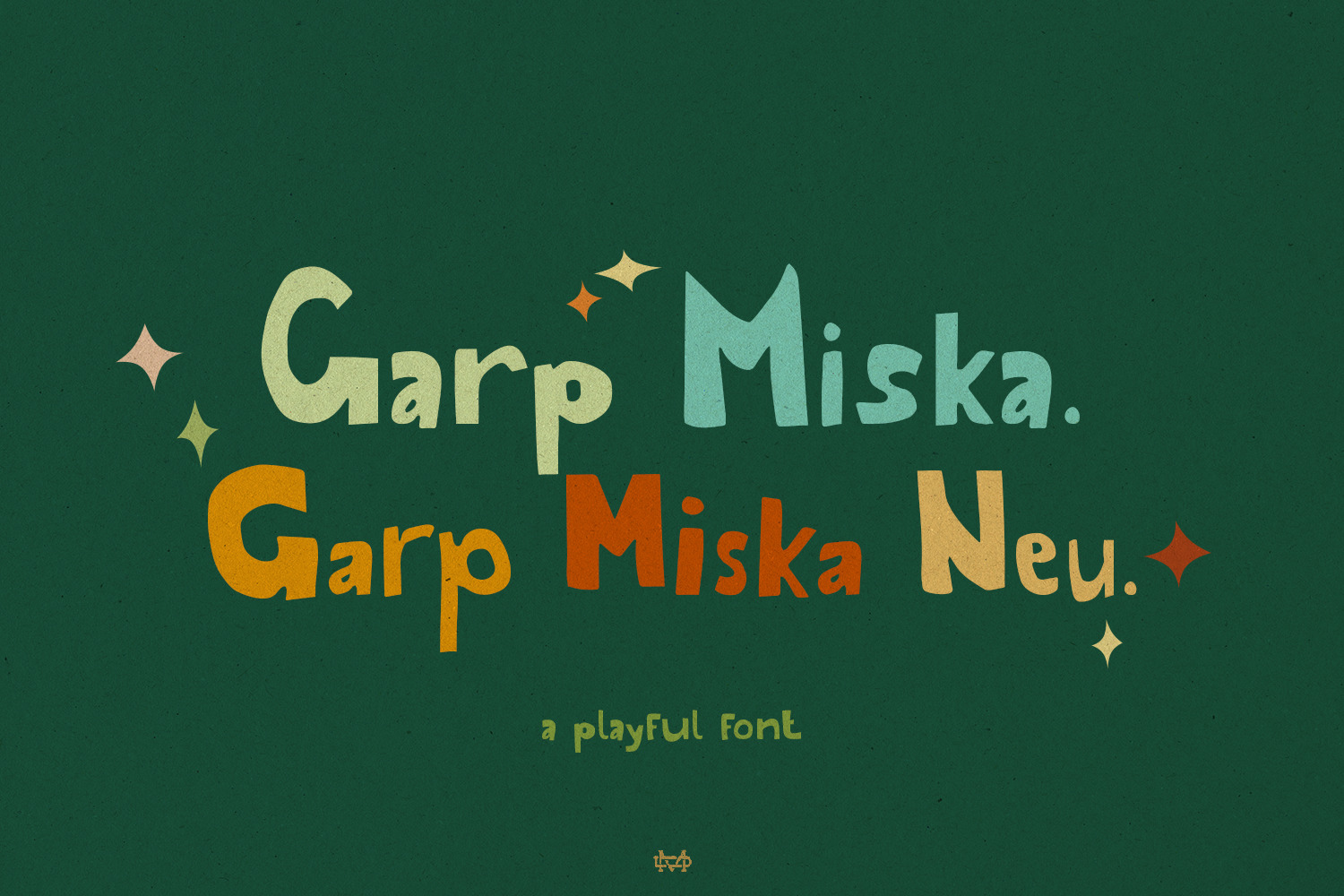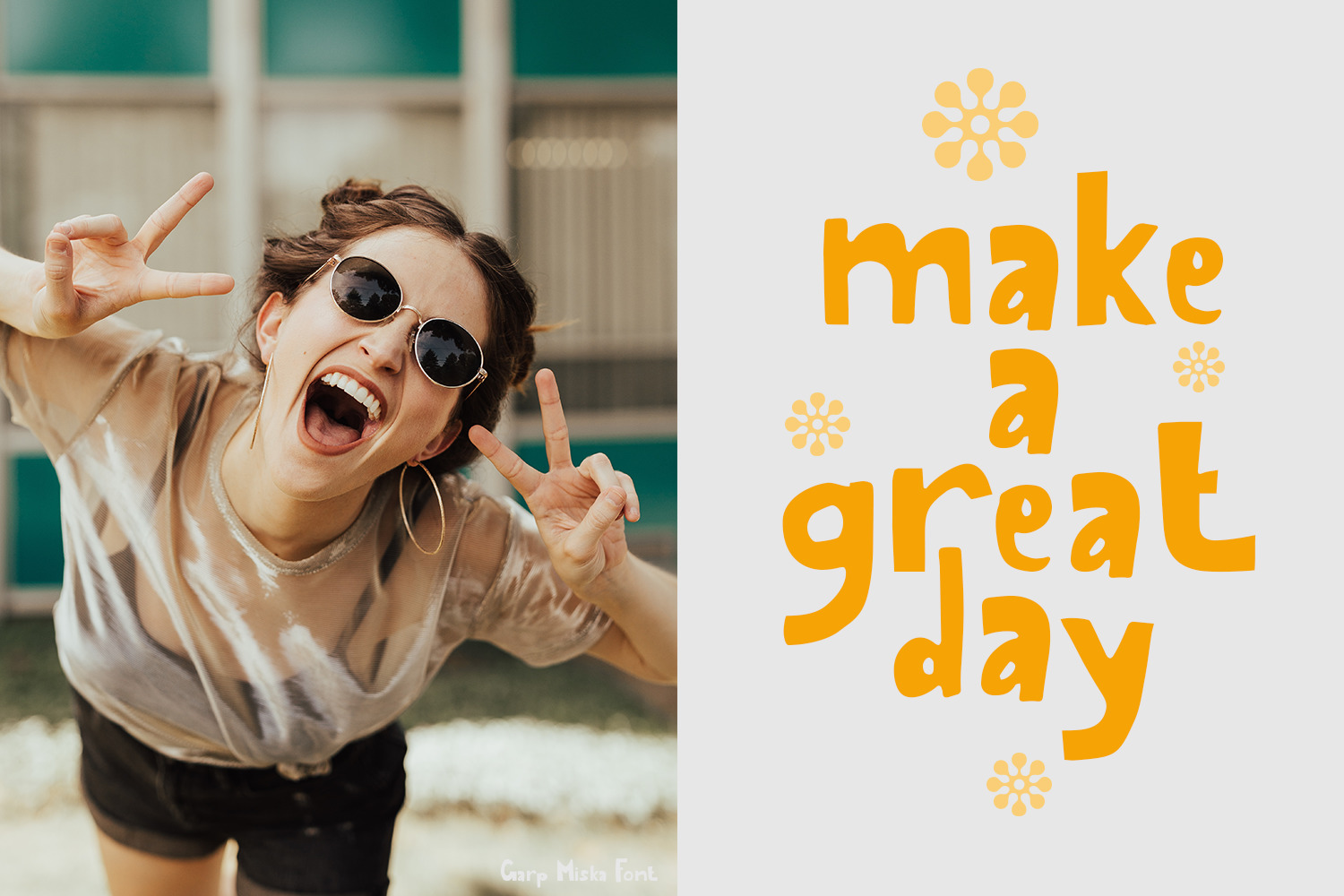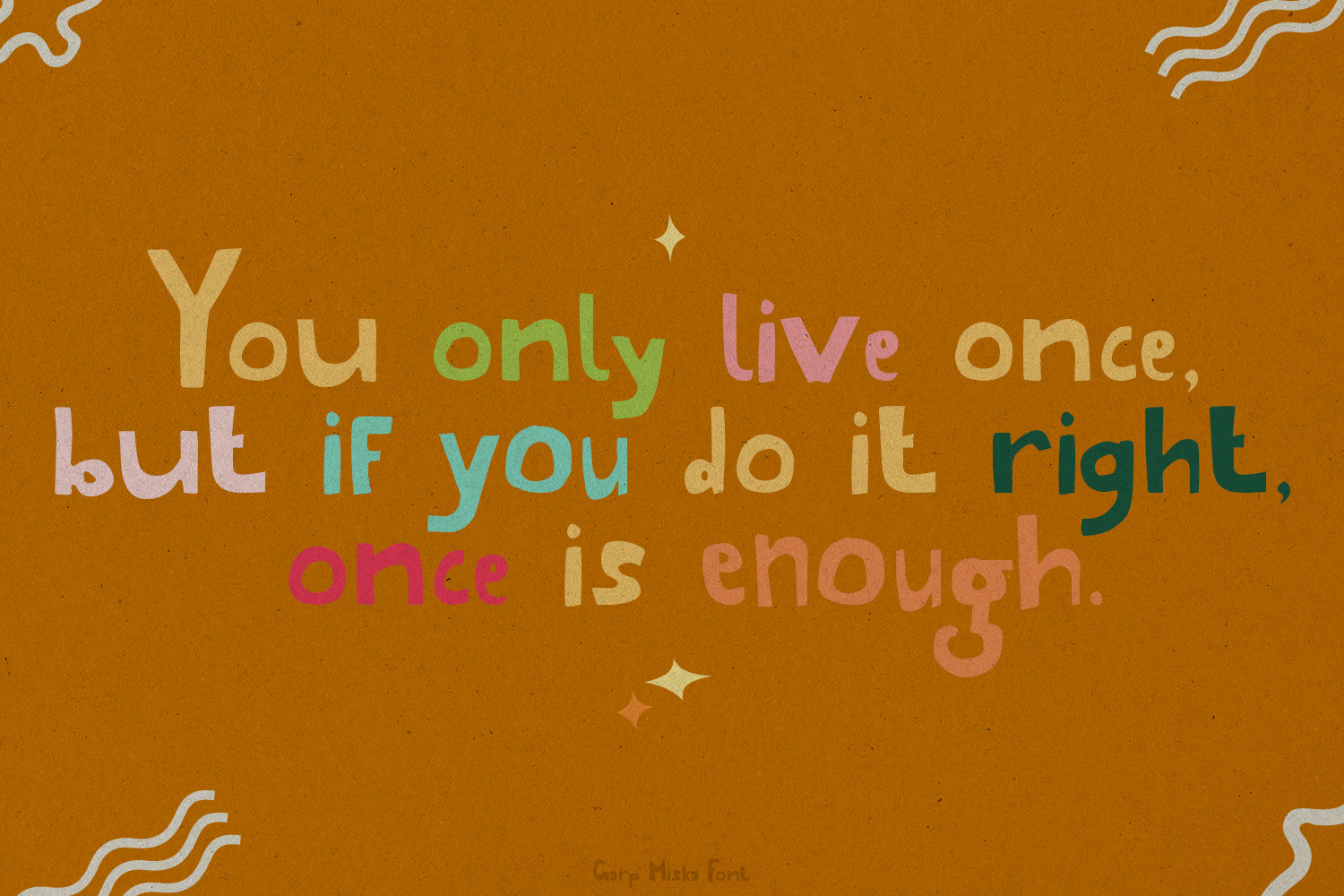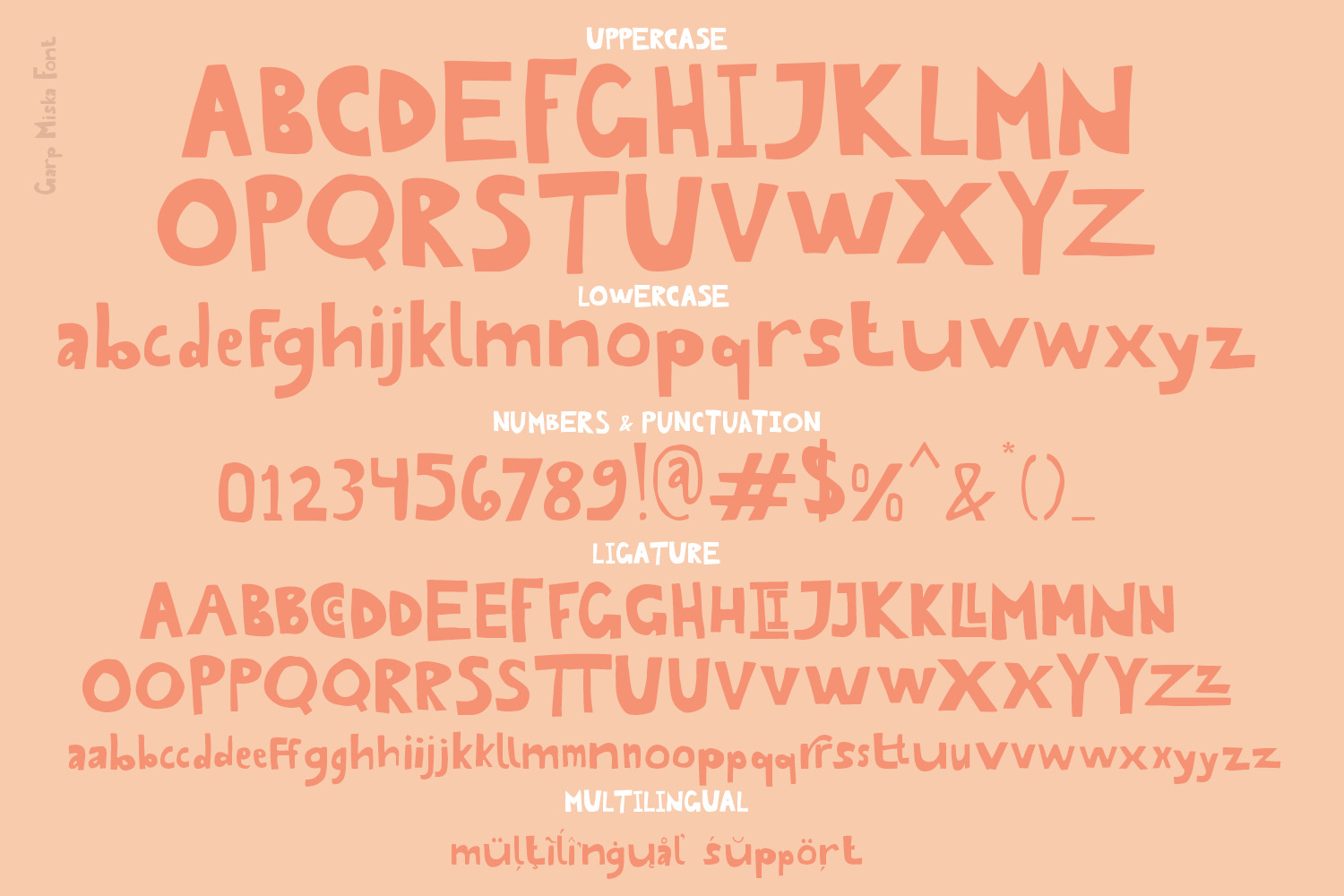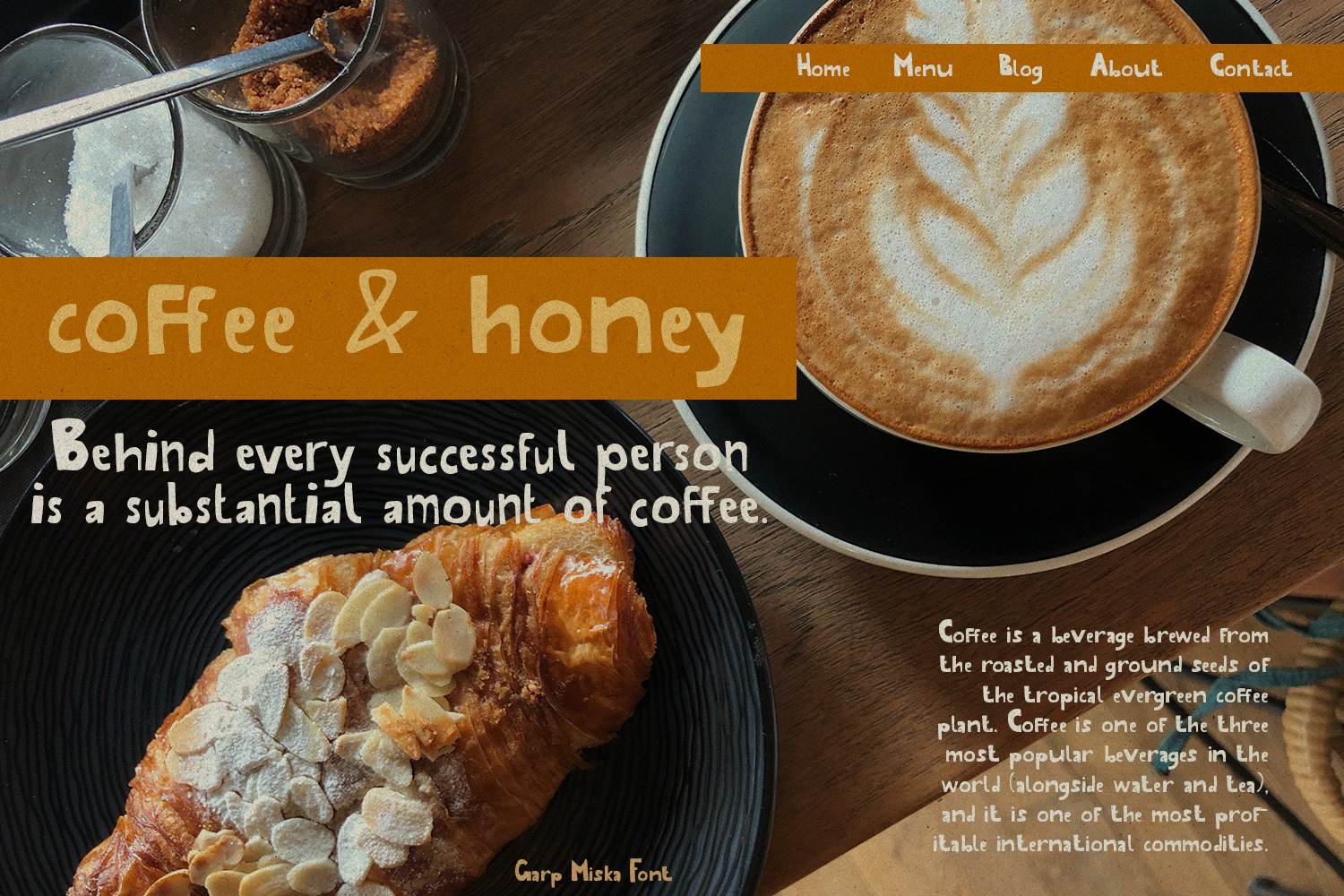
Garp Miska - Playful Font
Gary Miska is a cute font with two style neu and regular fun happiness look and will makes this font suitable for your any project design.
Feature
- Number & Symbol
- International Glyphs
- ligature